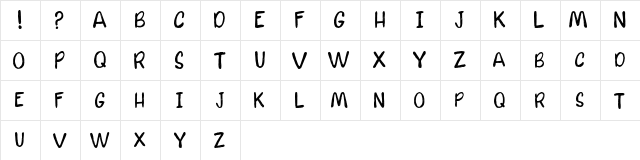
Calm Waters Regular Font Preview
Calm Waters Regular
Calm Waters Regular Font Details
Design Context for Calm Waters Typeface
Calm Waters is a composed and adaptable typeface that performs quietly and consistently across a wide range of design contexts.